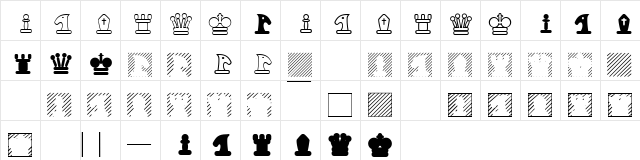
XChesstertonTwo Regular Font Preview
XChesstertonTwo Regular
Design Context for XChesstertonTwo Typeface
XChesstertonTwo is a composed and adaptable typeface that performs quietly and consistently across a wide range of design contexts.